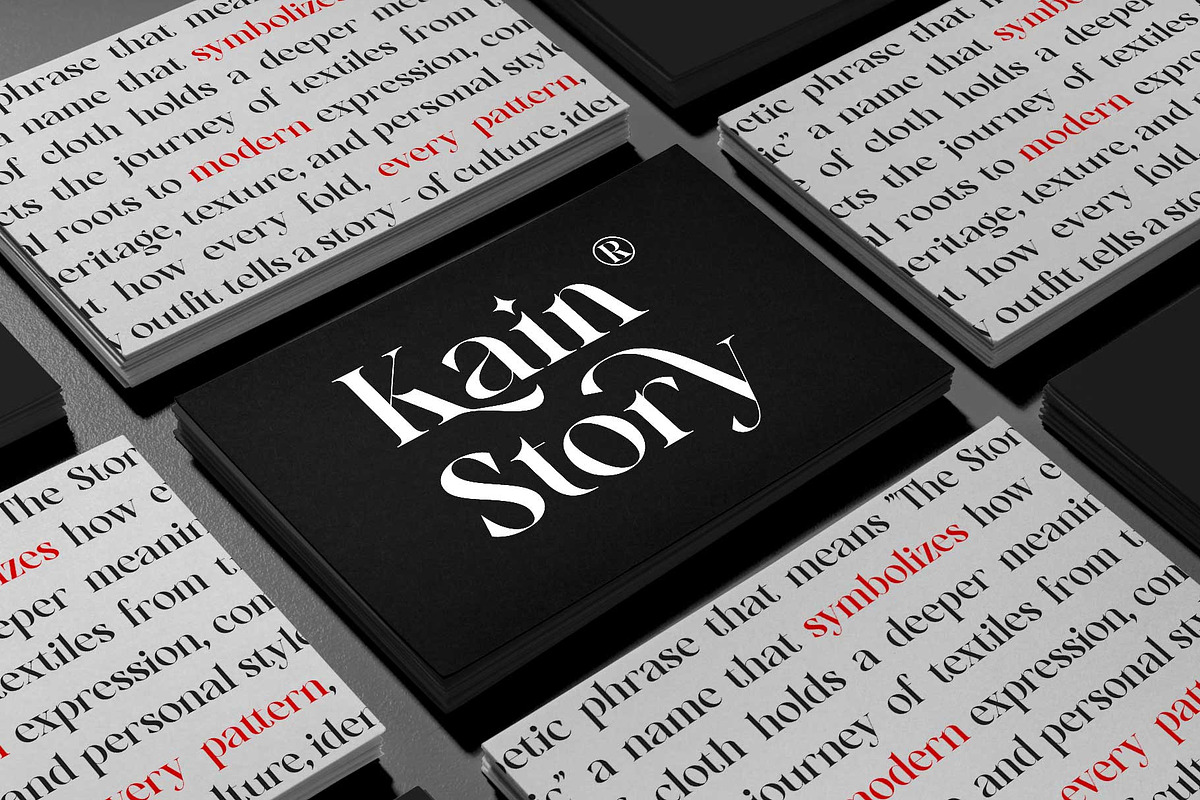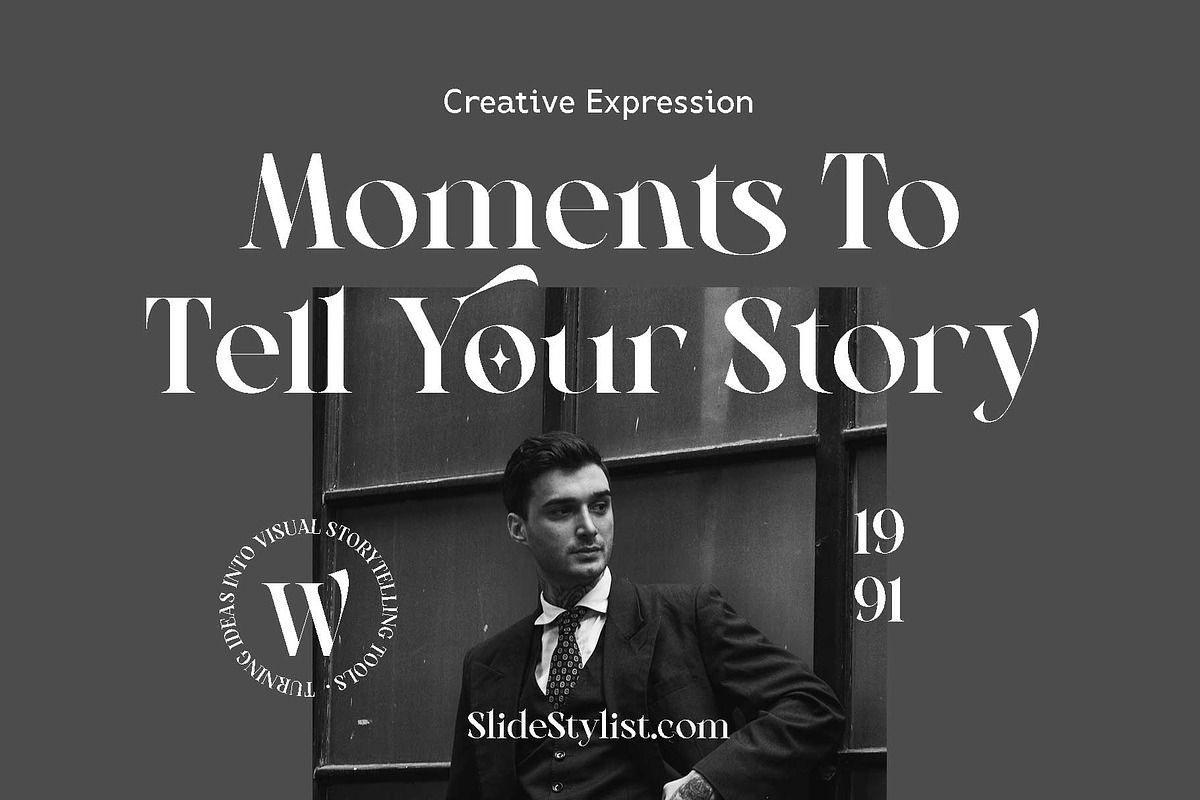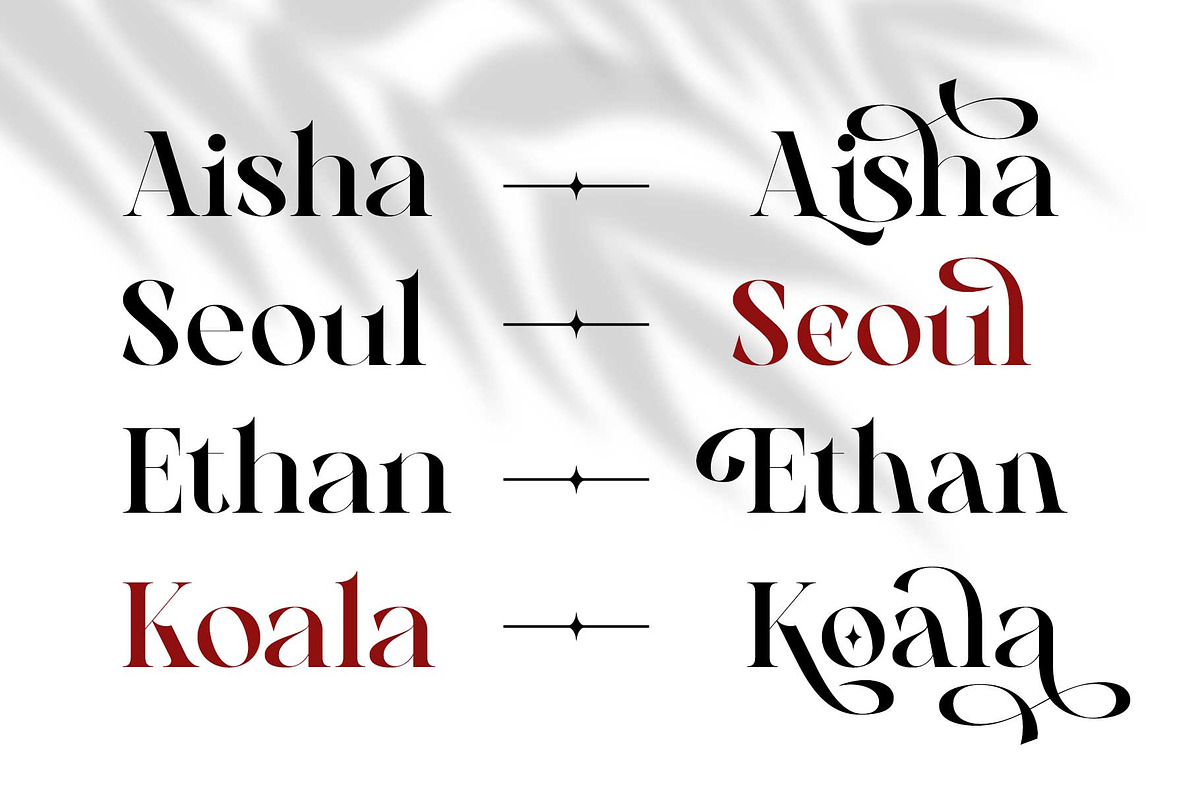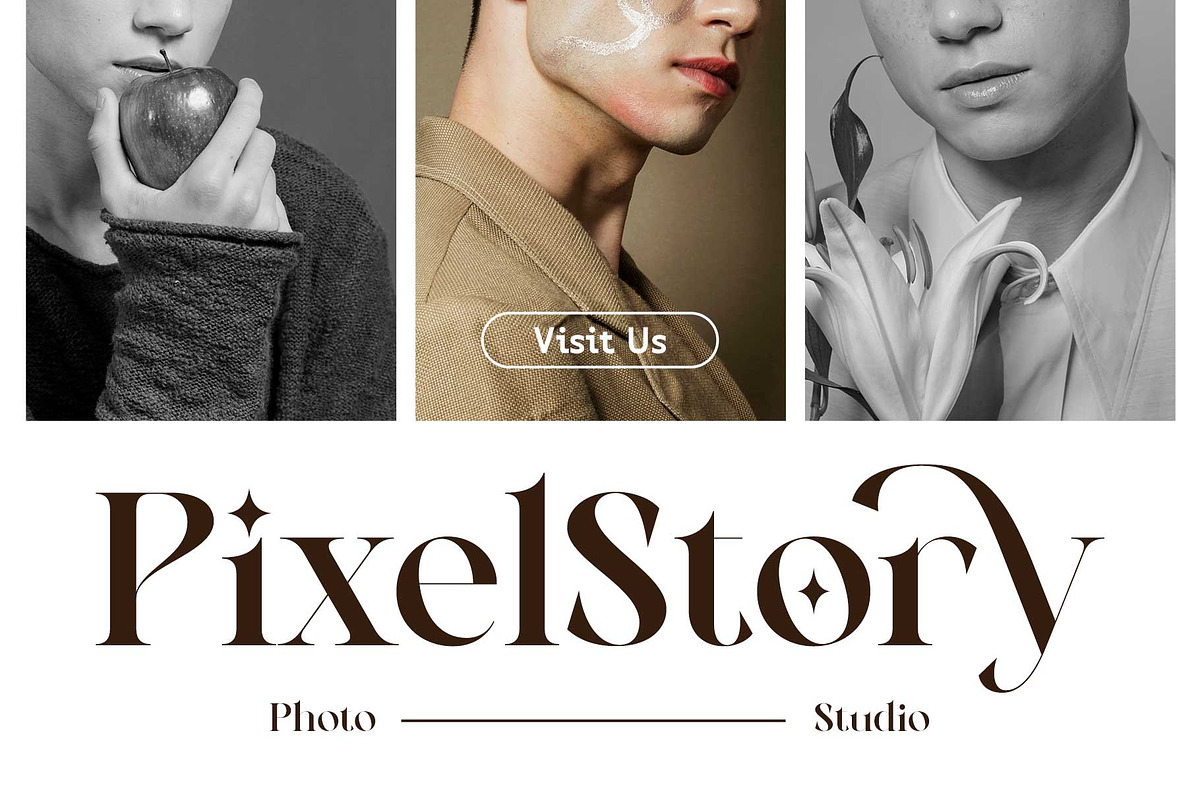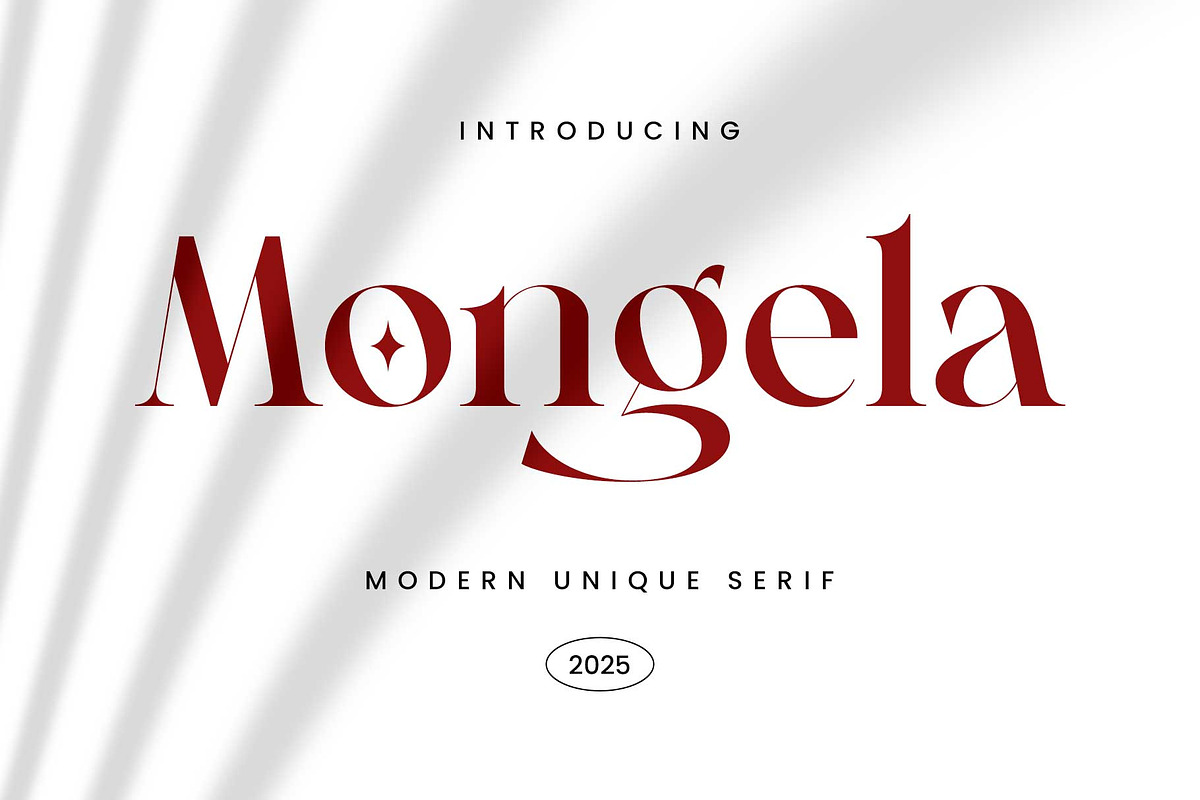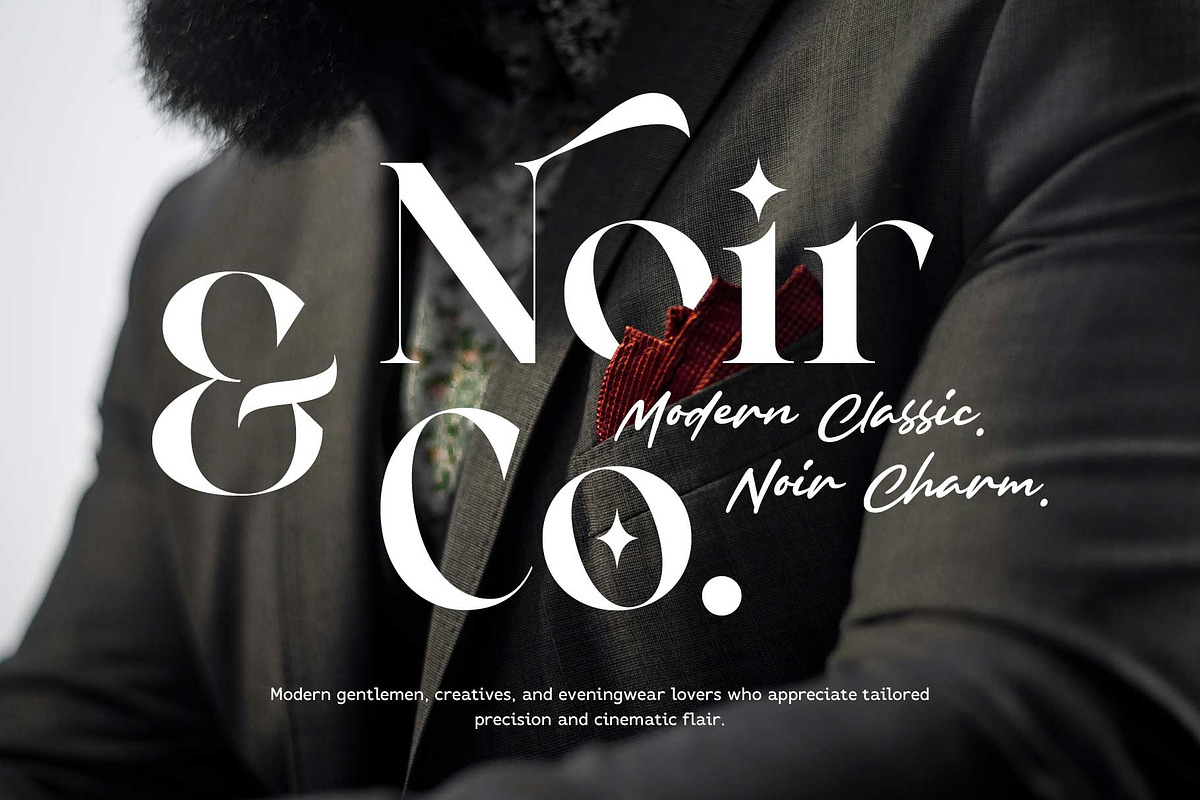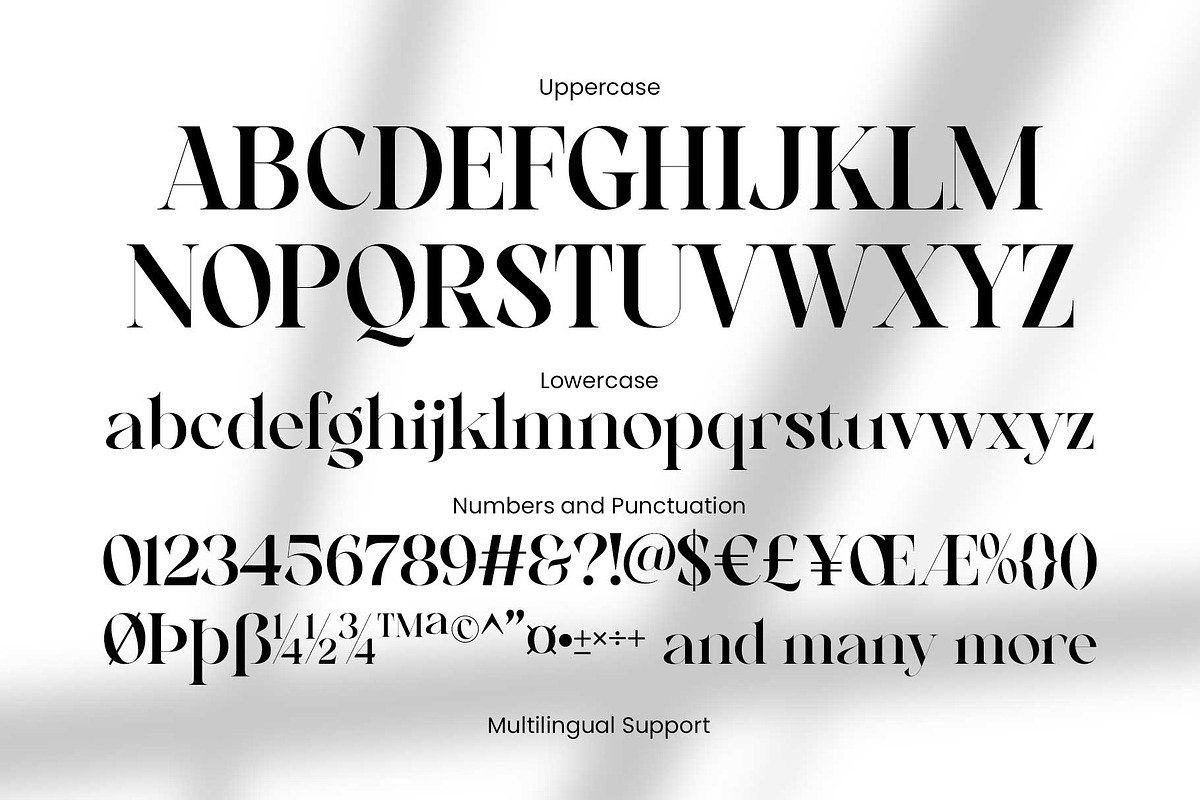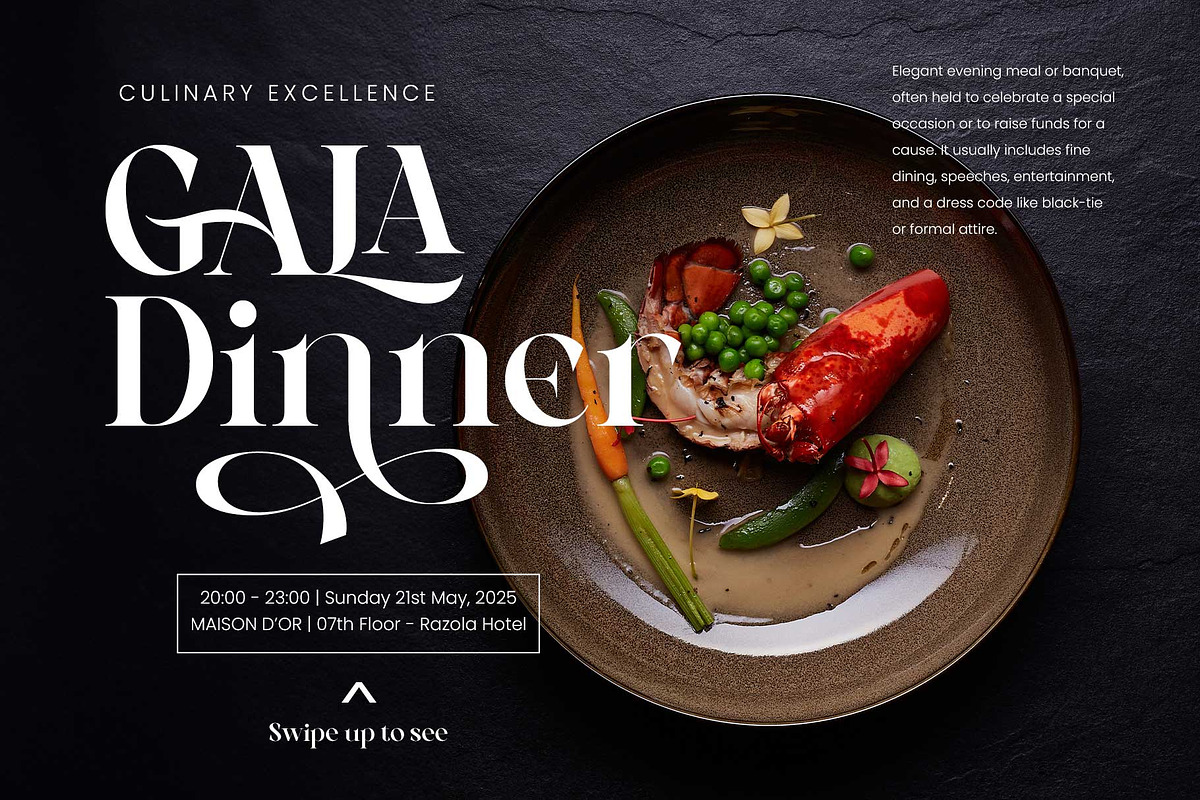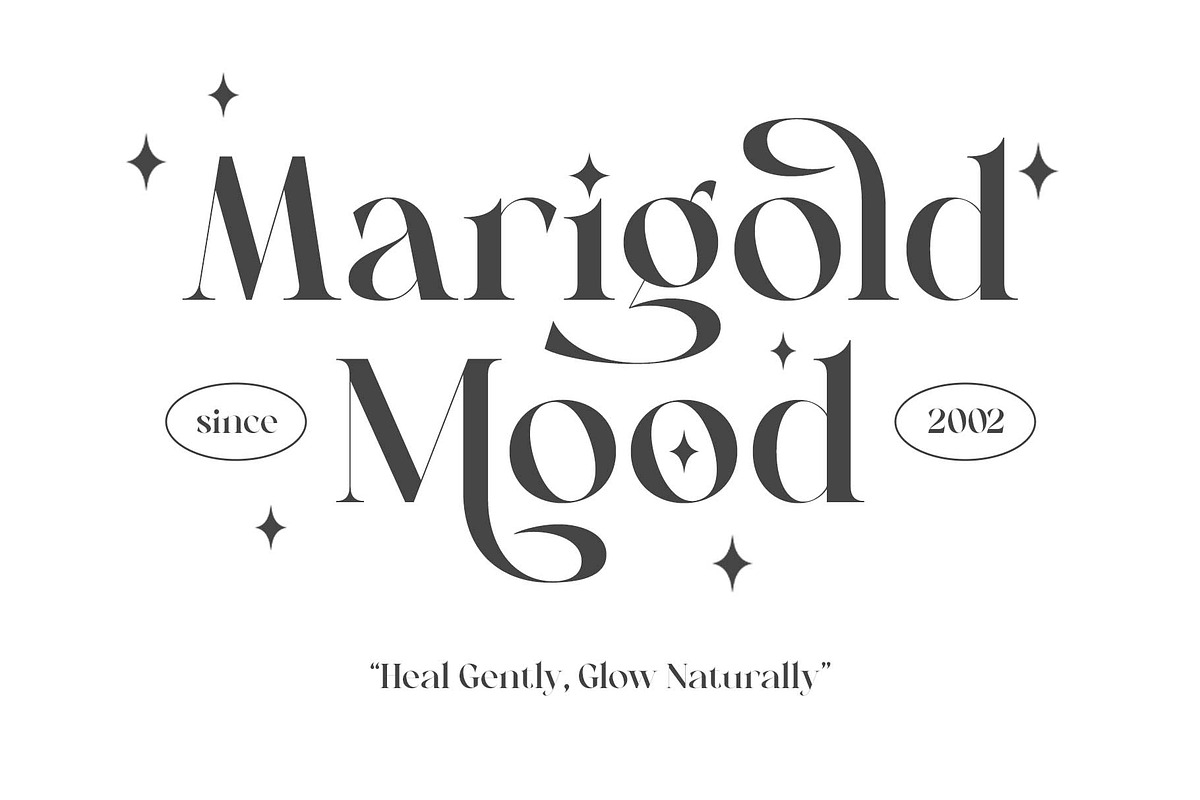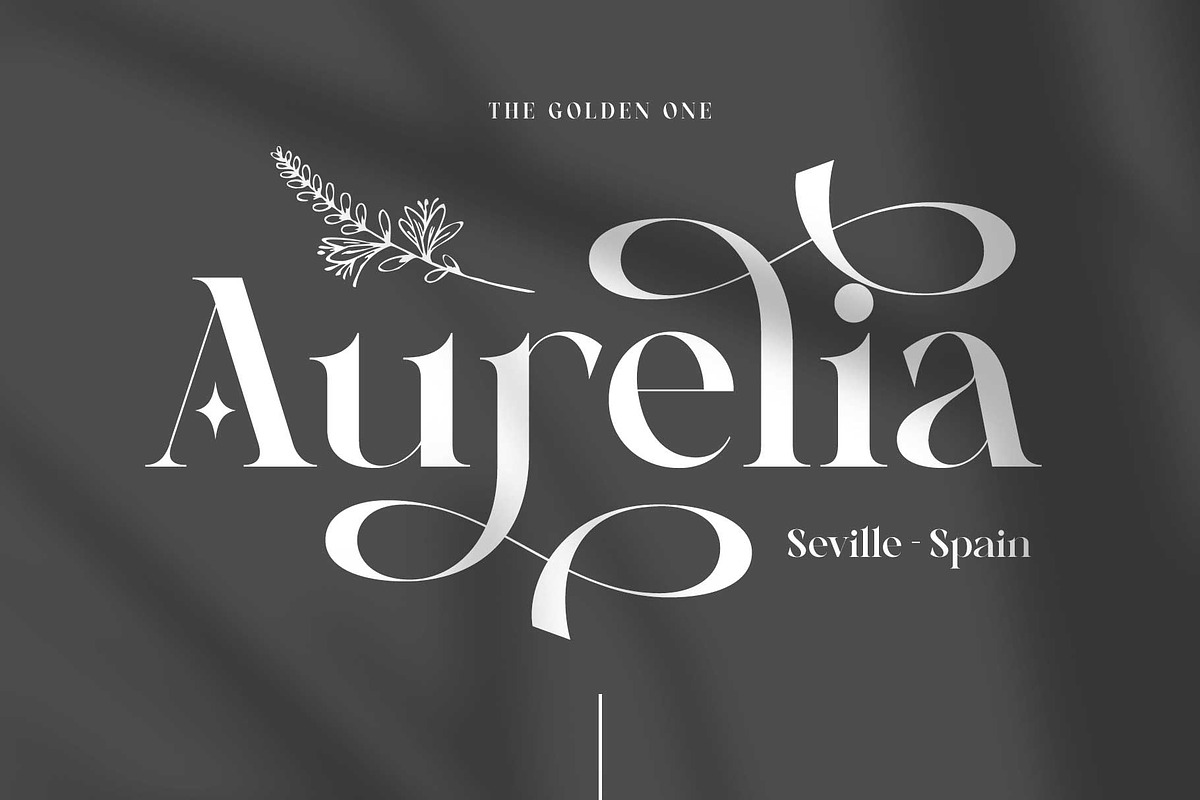
Mongela - Elegant Serif
Introducing Mongela – a beautiful serif typeface packed with a variety of OpenType features. It includes 200+ special characters and 70+ stunning ligatures that will elevate your design effortlessly!
Inspired by modern fashion and classic typography, Mongela is a high-contrast display serif that exudes luxury, elegance, and minimalism.
With its uniquely crafted letterforms, Mongela offers an exclusive typographic experience. This versatile font is perfect for a wide range of applications — including logos, logotypes, weddings, invitations, cards, magazines, fashion editorials, posters, social media graphics, and so much more!